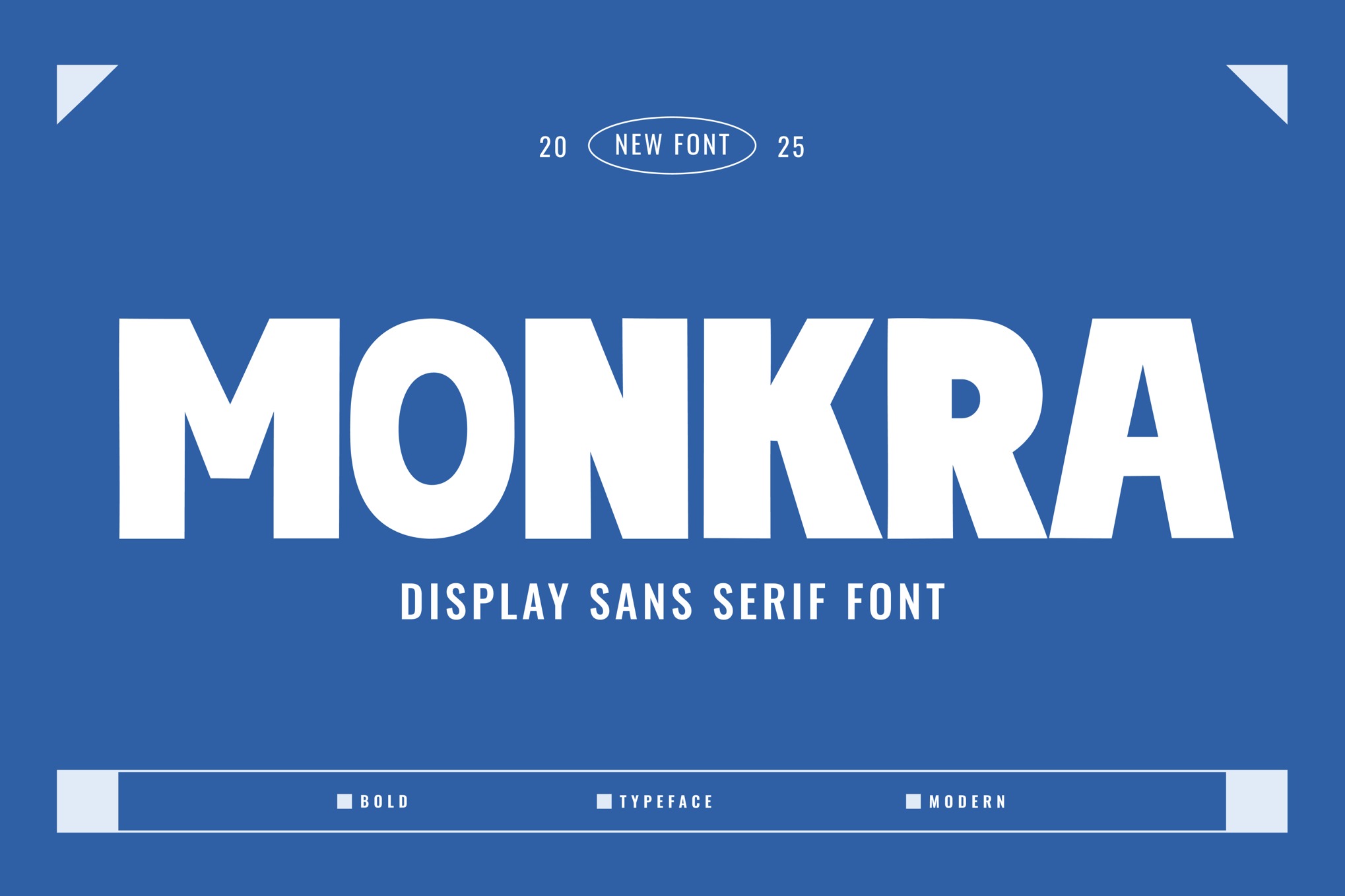
Monkra Font
Monkra Font is a bold and powerful display font crafted to deliver striking visual presence in a wide range of creative projects. With heavy, confident letterforms and a modern aesthetic, Monkra stands out as a top choice for designers who want typography that commands attention and communicates messages clearly. Built for modern design needs, this typeface excels in applications where impact, readability, and visual strength are key.
As a dedicated display typeface, Monkra shines in large-format typography. Its bold structure and balanced proportions make it ideal for headlines, titles, branding, logos, posters, packaging, and promotional graphics. Whether you are creating a commanding poster design or a bold logo identity, Monkra elevates visual communication with a strong sense of presence and style. Its contemporary design makes it suitable for both digital and print media, ensuring versatility across projects of all scales.
Monkra’s design emphasizes clarity and strength. Each character is shaped with precision to maintain legibility even at a distance, making it especially effective in environments where text needs to be immediately noticed. The robust strokes and geometric balance give Monkra a confident personality, helping designers establish visual hierarchy and command viewer attention. This makes the font particularly effective for advertising campaigns, social media visuals, editorial headers, and event signage.
While Monkra is optimized for display use, it also pairs well with a variety of body fonts in comprehensive design systems. When combined with simple sans-serif or elegant serif typefaces, Monkra adds emphasis without overwhelming the overall design. This flexibility enhances layouts in branding projects, websites, editorial spreads, and print materials, ensuring a cohesive visual voice across all touchpoints.
In branding and identity design, Monkra creates memorable visual marks. Its bold letterforms offer a distinctive typographic signature that strengthens brand recognition and personality. Whether used for a startup’s visual identity or rebranding an established business, Monkra provides typographic confidence and a contemporary edge that aligns with modern design trends.
Monkra is also highly effective in marketing and promotional materials. Bold headlines and impactful display text play a crucial role in capturing audience attention, especially in competitive visual environments. When used in posters, flyers, banners, and digital ads, Monkra helps deliver key messages with clarity and authority. Its design ensures that important text elements remain visible and engaging, enhancing the overall effectiveness of creative campaigns.
In web design, Monkra brings bold typography to digital interfaces. It performs exceptionally well in hero sections, landing page headers, feature highlights, and navigation elements, where strong text hierarchy improves user engagement. The font’s modern style and readability make it suitable for responsive layouts, ensuring consistent performance across desktops, tablets, and mobile devices.
For print applications, Monkra maintains its visual impact and clarity. It is well-suited for magazine covers, brochures, business cards, posters, and packaging designs. The font’s bold presence ensures that key text elements remain dominant on the page, making it ideal for high-visibility print usage where visual communication is essential.
Monkra includes a full set of uppercase letters, numerals, and essential punctuation, providing flexibility for diverse creative needs. Its geometric construction ensures even spacing and visual harmony across characters, enhancing the flow and rhythm of text in design layouts. This consistency makes Monkra a reliable choice for professional typographic work where quality and precision are required.
Designers, creative professionals, and branding specialists will find Monkra to be a valuable addition to their typeface collections. Its blend of bold aesthetics and functional clarity supports a wide range of design projects, from bold branding campaigns to expressive editorial layouts. Monkra’s confident design helps transform ordinary text into compelling visual statements, ensuring that key messages stand out with impact and style.
Overall, Monkra Display Font delivers a strong, modern typographic voice with high visual impact and professional quality. Its bold design, versatility, and contemporary appeal make it an excellent choice for designers seeking to enhance their creative work with powerful display typography. Whether used for branding, advertising, web interfaces, or print design, Monkra offers the strength and clarity needed to elevate any project.